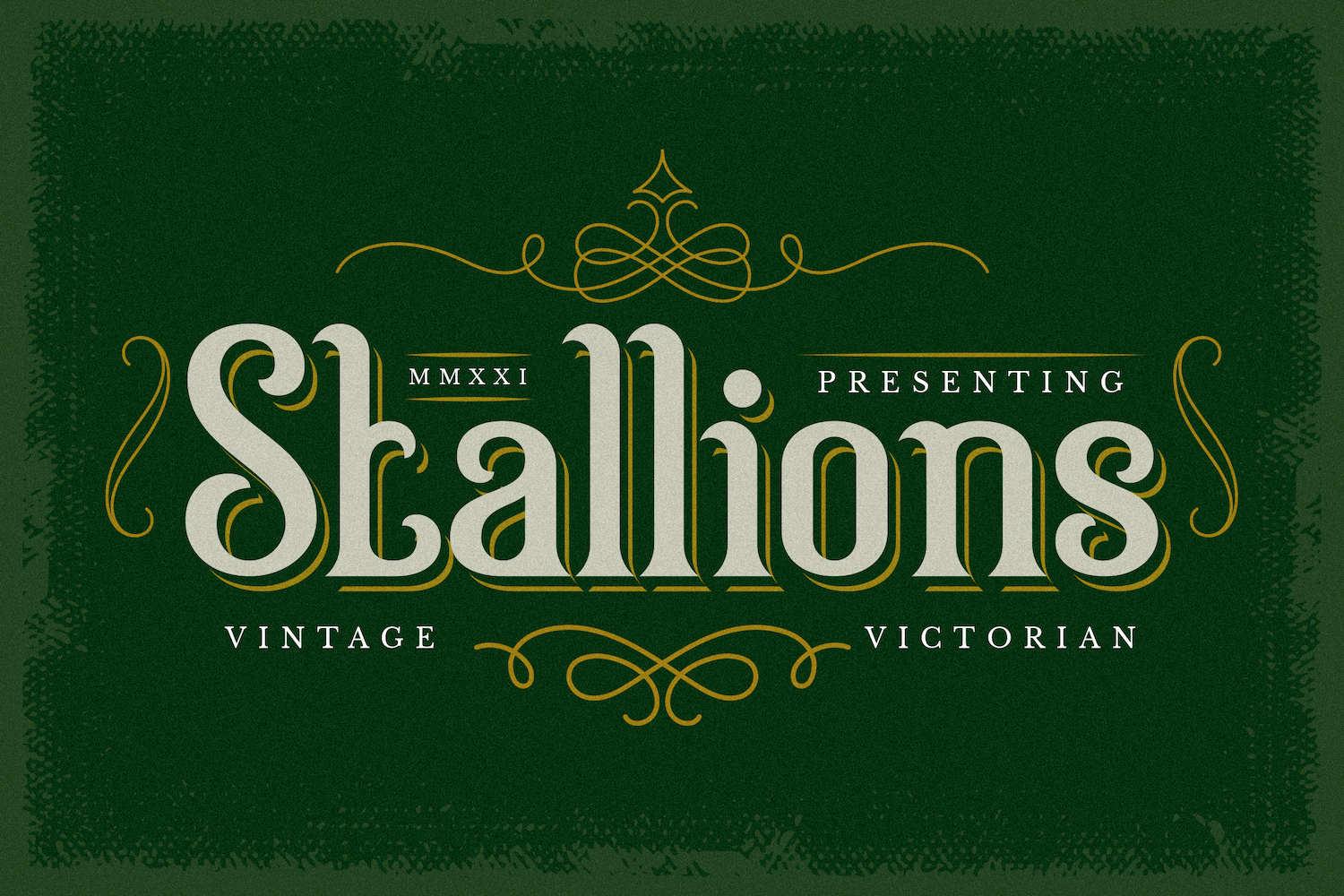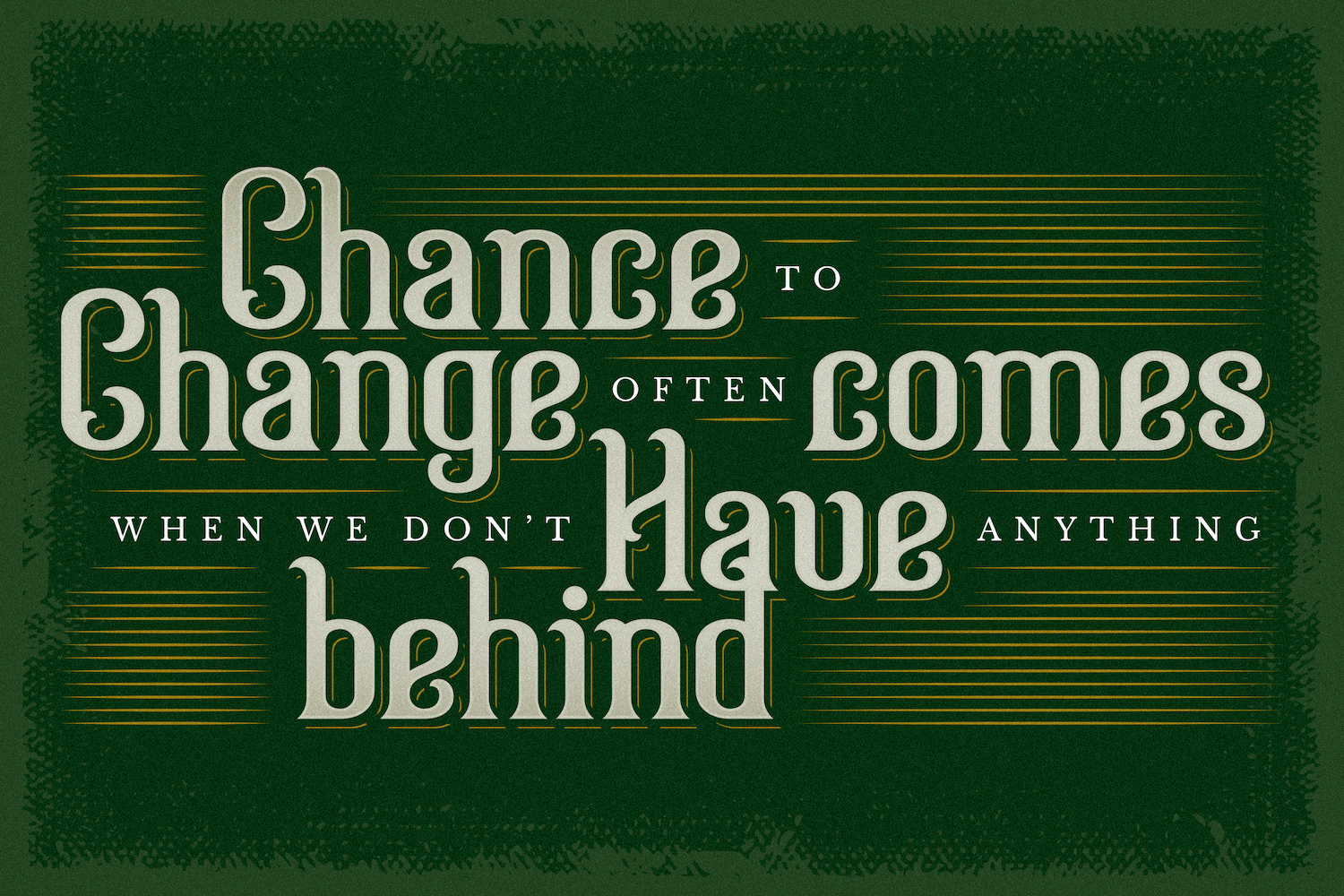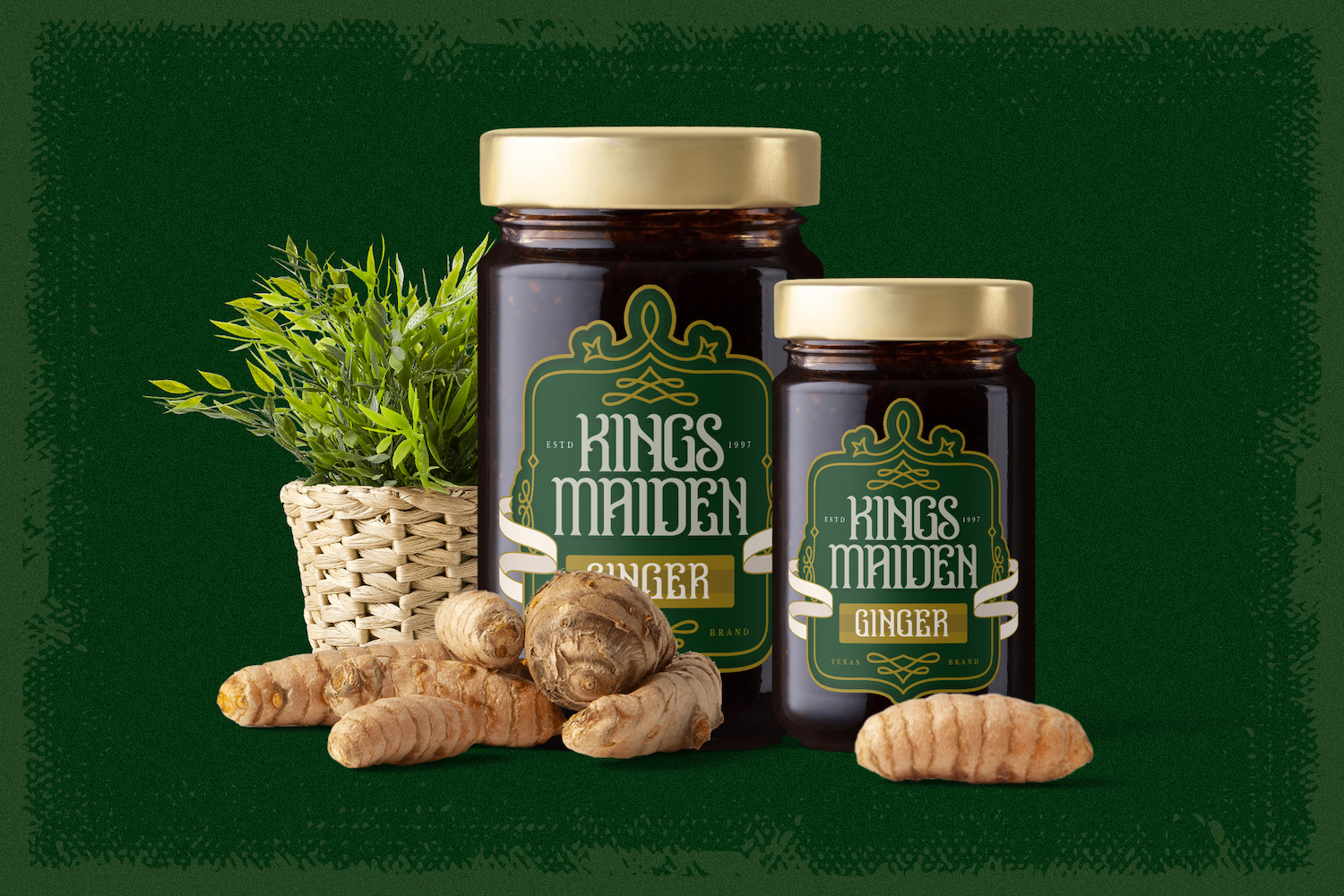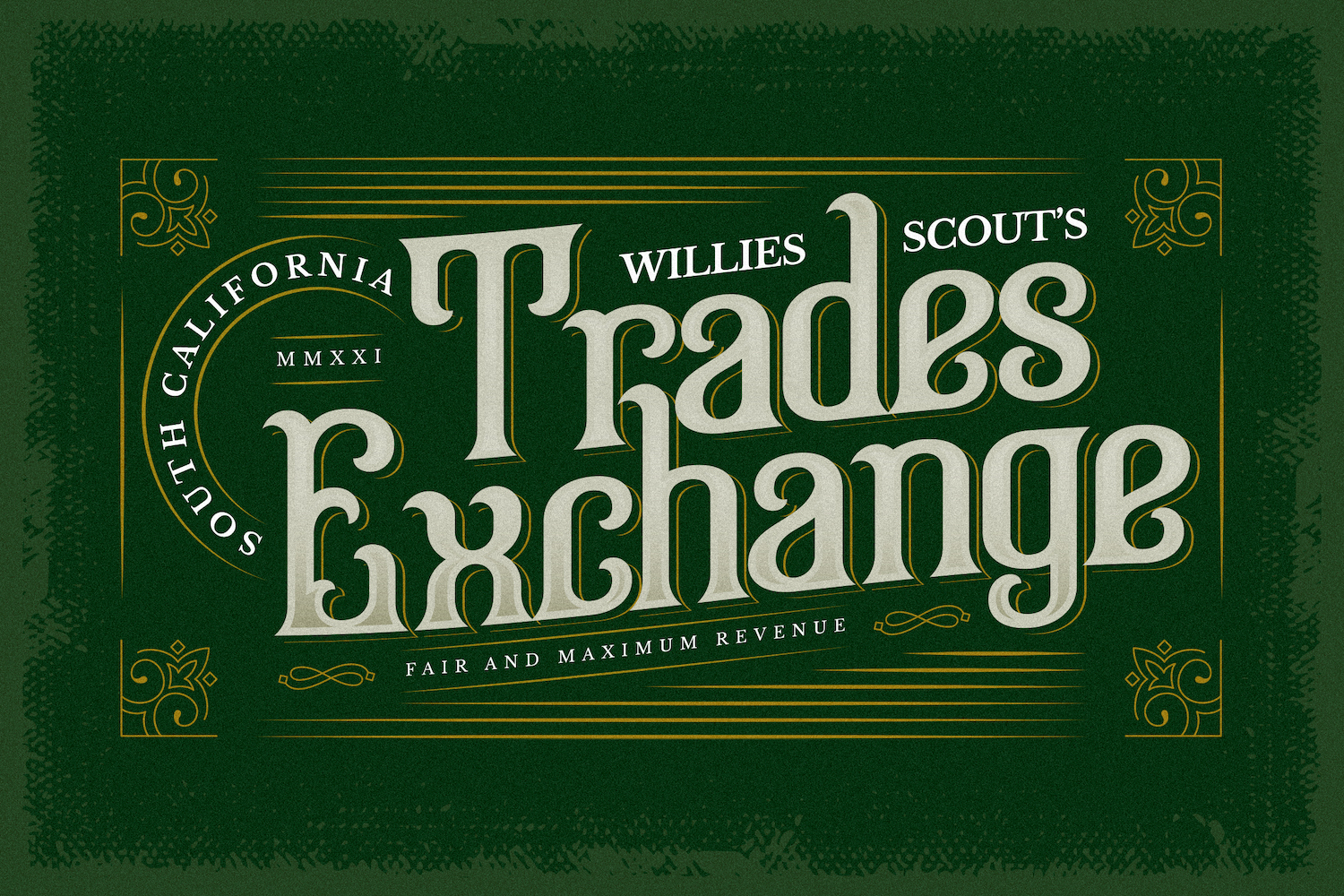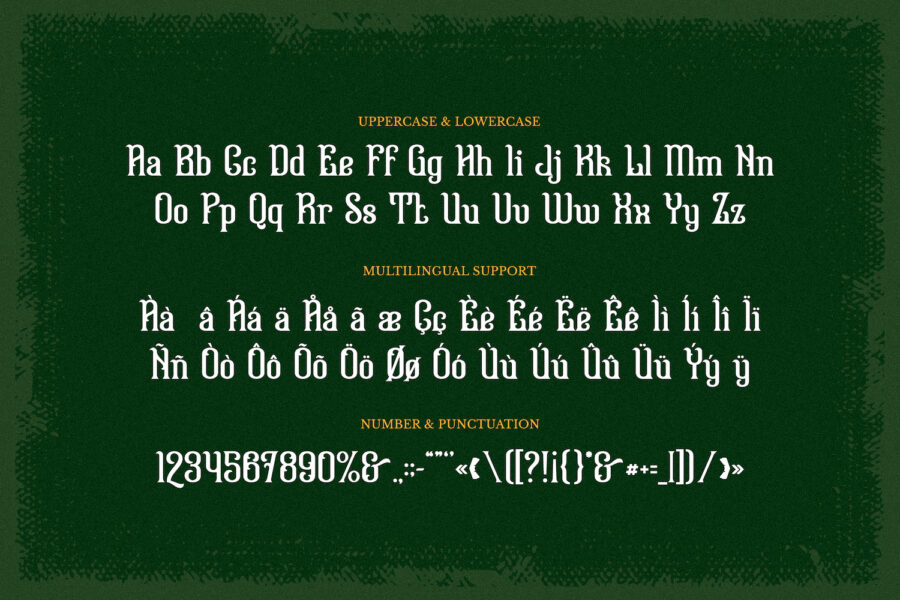
Stallions is a bold and ornate display font inspired by the elegance of Victorian lettering and the strength of vintage signage. With its dramatic curves, stylish swashes, and classic serif detailing, Stallions brings a sense of sophistication and heritage to your design projects. Each letter is meticulously crafted to echo the charm of old-world typography, making it a perfect choice for branding, packaging, labels, and retro-themed posters.
Designed to stand out, Stallions offers both uppercase and lowercase letters, multilingual support, and an array of punctuation marks and numerals. Whether you’re designing for a boutique product, an artisan label, or a nostalgic campaign, Stallions brings visual impact and timeless flair to your typography toolkit.